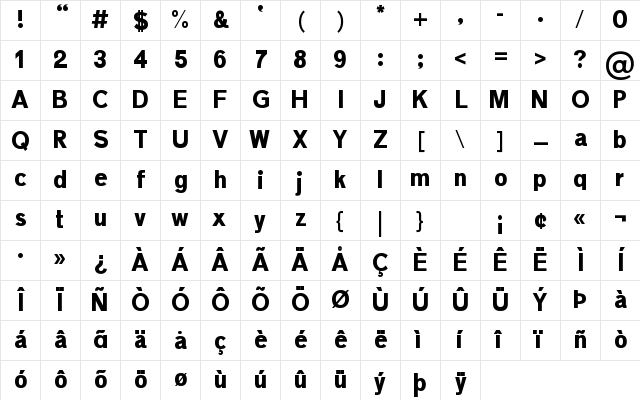
Complete Maximum Impact Regular glyph index. Displaying only characters natively supported by Maximum Impact Regular font.
Maximum Impact brings high-energy athletic personality to the page - its confident, muscular forms are built for impact.
A natural choice for gym brands, fantasy sports, jersey lettering, and action-driven headlines.
Font Pairing: Use alongside a condensed or geometric sans for supporting copy - keep the pairing bold, functional, and free of ornament.
Pro Tip: Use Maximum Impact in all-caps headlines where its athletic energy can fully express itself. Pair with a solid, simple sans for supporting text.